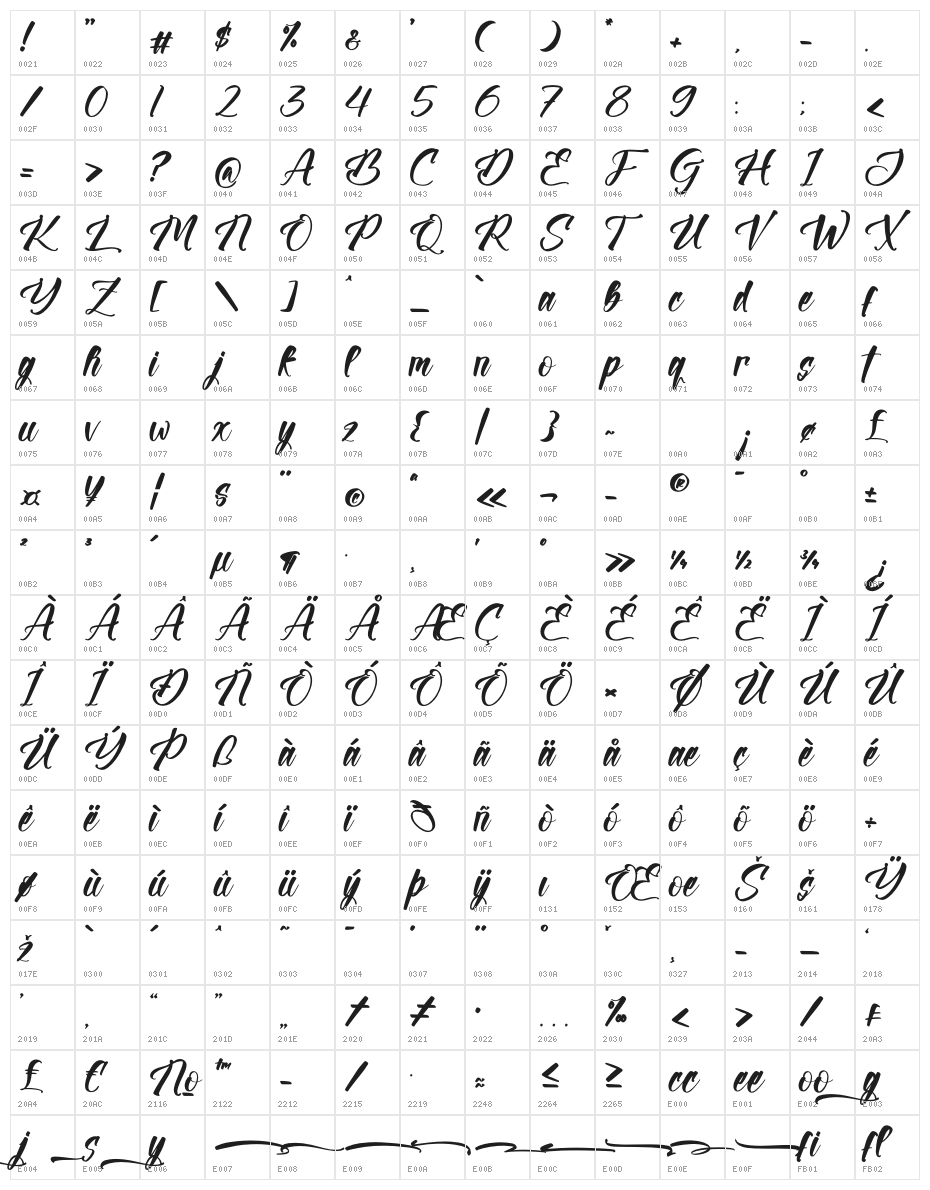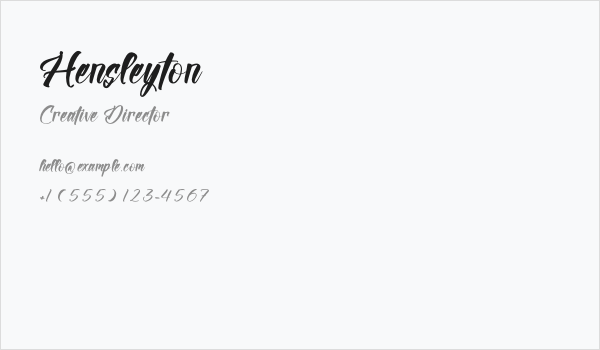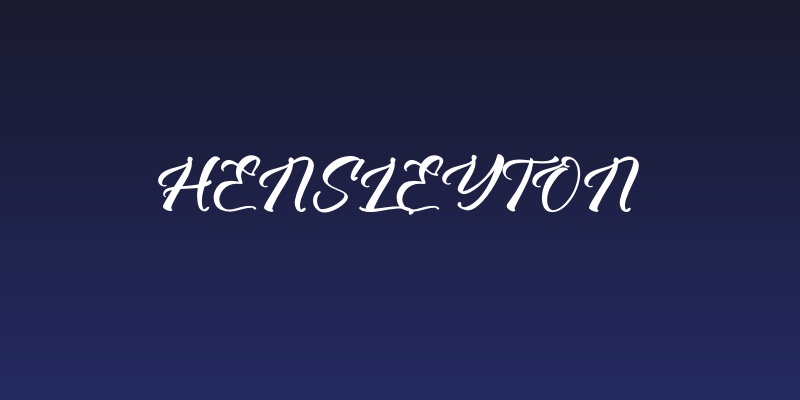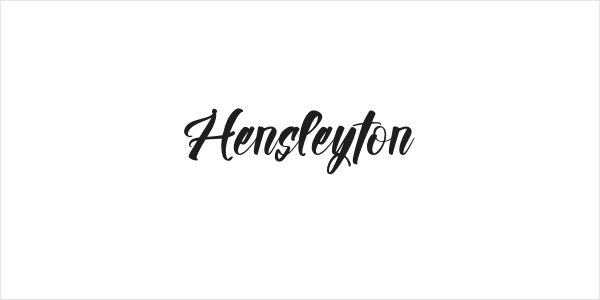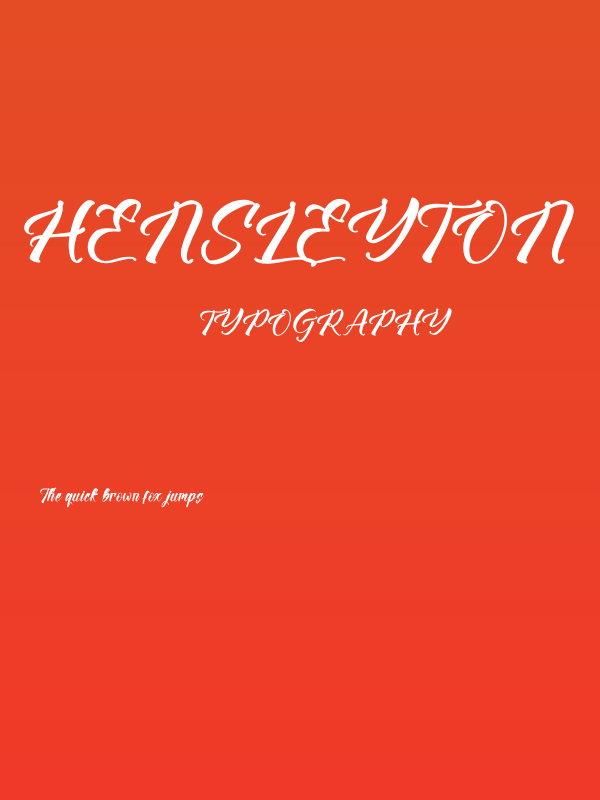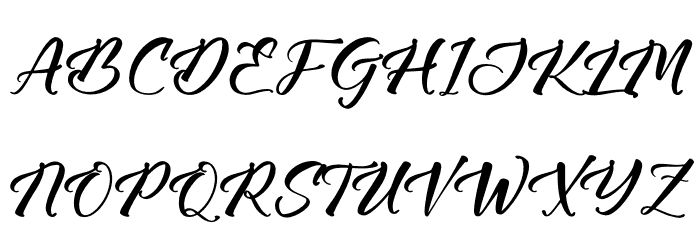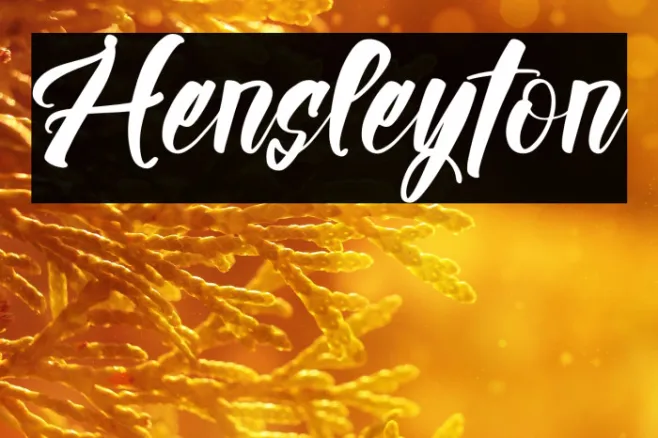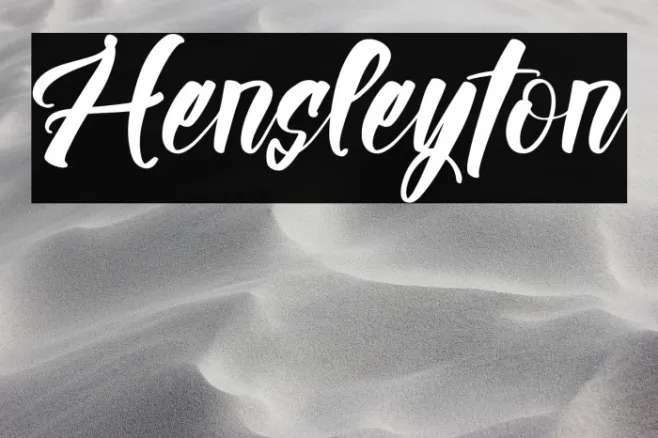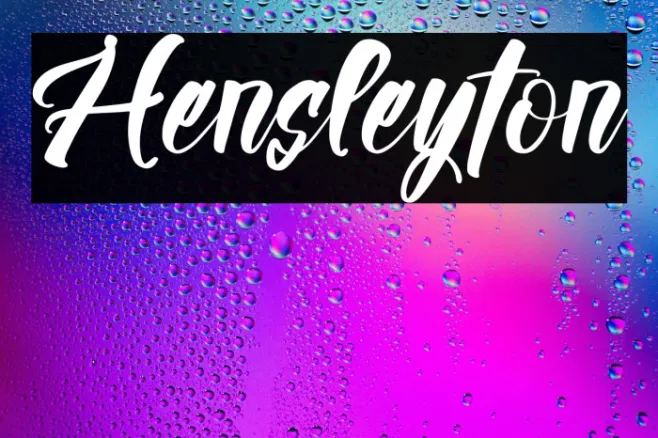
Hensleyton Font
Hensleyton Description
A bold, cursive script font with a flowing, handwritten style, featuring high contrast and elegant curves.
| Use Case | Logos, Headlines |
| Proposed Projects | Invitations, greeting cards, branding. |